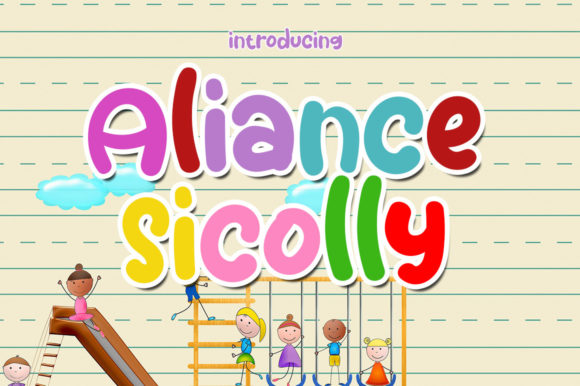
The Sweet Spot: Discovering Aliance Sicolly Font
I still remember the design project that led me to Aliance Sicolly Font. I was working on a branding campaign for a new bakery, and I needed a font that would convey warmth, friendliness, and a touch of elegance. After hours of scouring through font libraries, I stumbled upon Aliance Sicolly, and it was love at first sight! ✨ This beautiful display font has since become a staple in my design toolkit, and I’m excited to share its charm with you.
So, what makes Aliance Sicolly Font so special? Let’s dive into the good stuff and a few quirks I’ve discovered.
- ✨ Fresh and clean design that’s perfect for modern projects
- ✅ Elegant and sophisticated, yet approachable and friendly
- 🌈 Highly versatile – works amazingly well in both formal and informal designs
- 💕 Adds a joyful touch to any project, making it perfect for designs that need a bit of whimsy
While Aliance Sicolly Font is incredibly versatile, there are a few things to keep in mind:
- 🤔 Limited use in very small font sizes, as some details may get lost
- ⚠️ Not ideal for body text, as it’s designed primarily for display purposes
A Practical Guide: Using Aliance Sicolly Font in Your Designs
The Story Behind Aliance Sicolly Font
While the exact backstory of Aliance Sicolly Font remains a mystery, it’s clear that the designer aimed to create a font that would bring joy and elegance to various design projects. The result is a beautiful, sweet display font that’s perfect for adding a touch of sophistication and whimsy.
Q: What type of projects is Aliance Sicolly Font best suited for?
Aliance Sicolly Font is incredibly versatile and can be used in a wide range of projects, from formal branding and advertising to informal social media graphics and crafts.
Q: Does Aliance Sicolly Font support OpenType features?
Yes, Aliance Sicolly Font supports OpenType features, including ligatures and stylistic alternates, which can add visual interest to your designs.
Q: Can I use Aliance Sicolly Font in both digital and print designs?
Absolutely! Aliance Sicolly Font is suitable for both digital and print designs, making it a great addition to your font library.